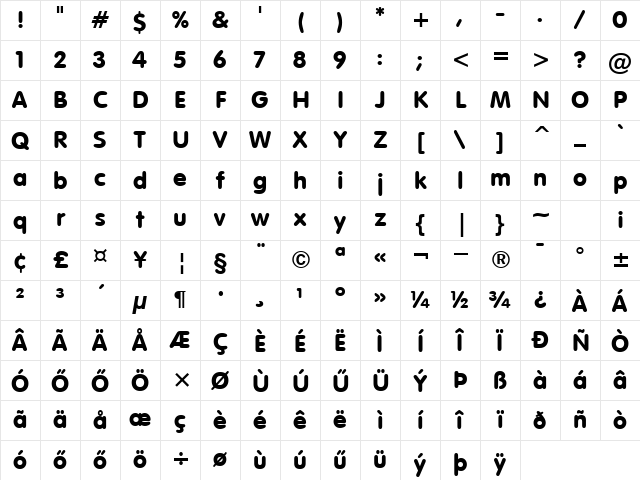
H_VAG Rounded BT softens its letterforms with rounded terminals, giving it an approachable, friendly quality that works well in consumer-facing and digital contexts.
Font Pairing: Pairs well with a rounded or humanist sans for body copy, maintaining the friendly tone without relying on H_VAG Rounded BT to carry extended reading.
Pro Tip: Use H_VAG Rounded BT for UI elements, app interfaces, and anywhere a friendly, approachable tone needs to be maintained without sacrificing clarity.